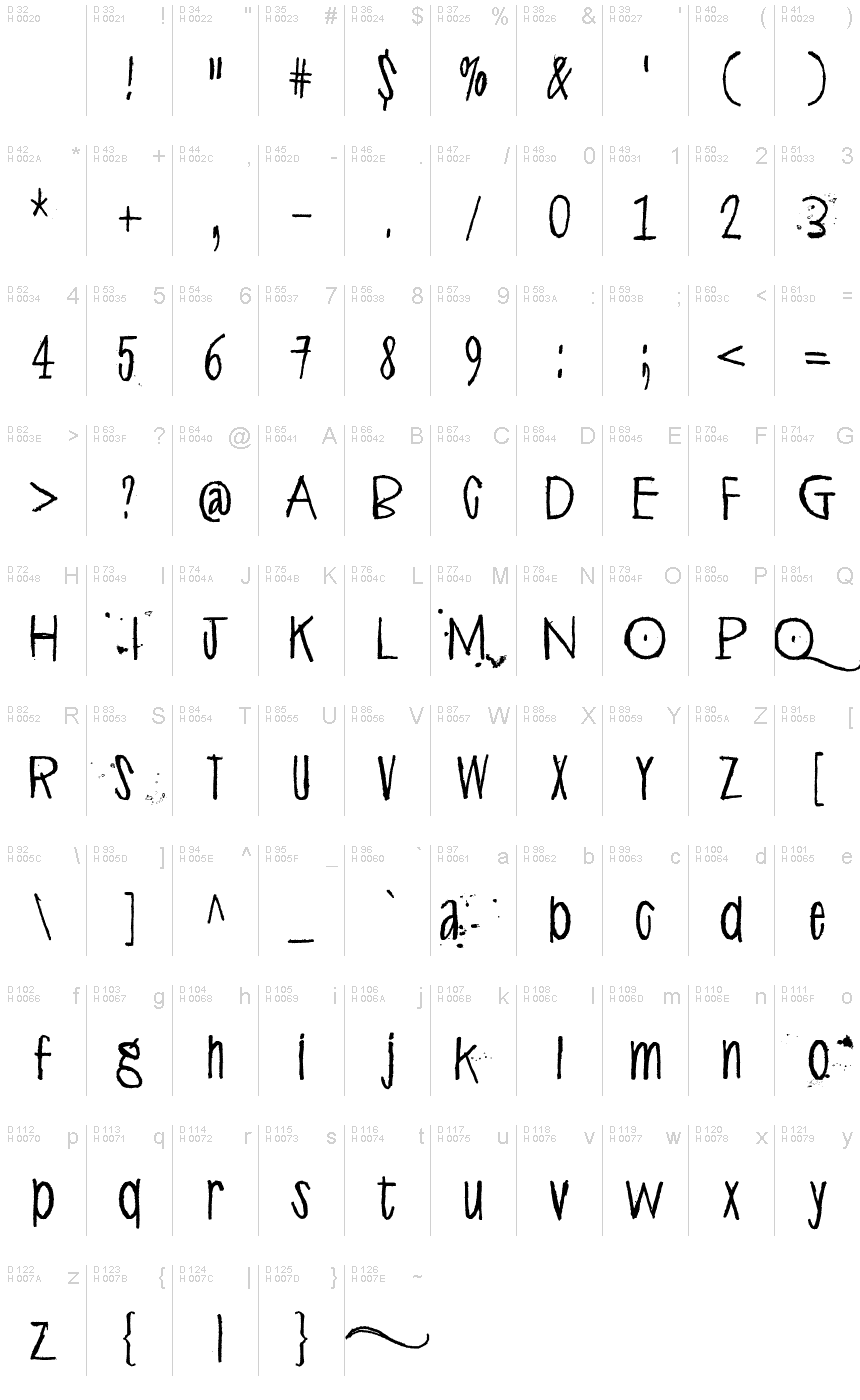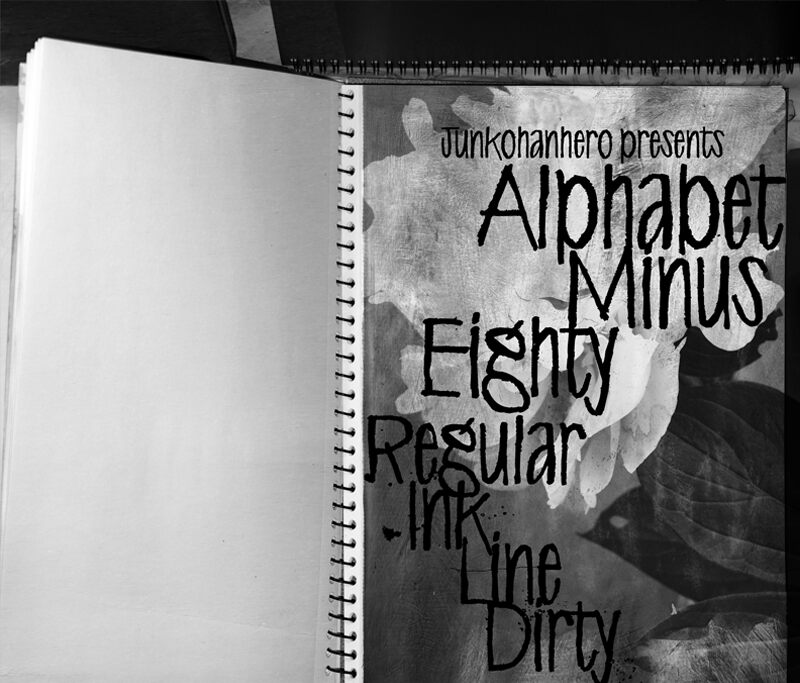
Alphabet Minus Eighty Ink
Alphabet Minus Eighty Ink is a display font designed by junkohanhero that's perfect for projects looking to add a touch of edginess. With its semi-light weight and condensed width, this typeface is ideal for headlines and short bursts of text. The trashy, scary style of Alphabet Minus Eighty Ink lends itself well to horror movie posters, heavy metal album covers, or even Halloween party invitations. Its unique appearance will help your project stand out from the crowd and make an impact on your audience. Use Alphabet Minus Eighty Ink to add a little bit of darkness and intrigue to your next design endeavor.